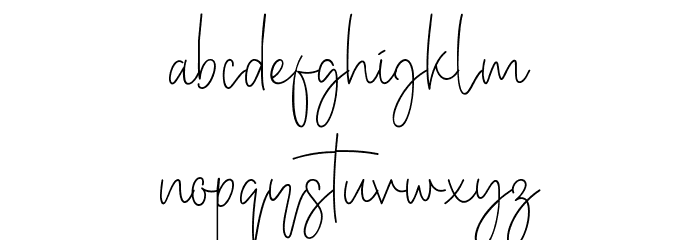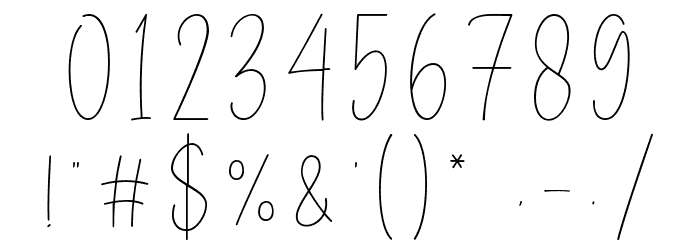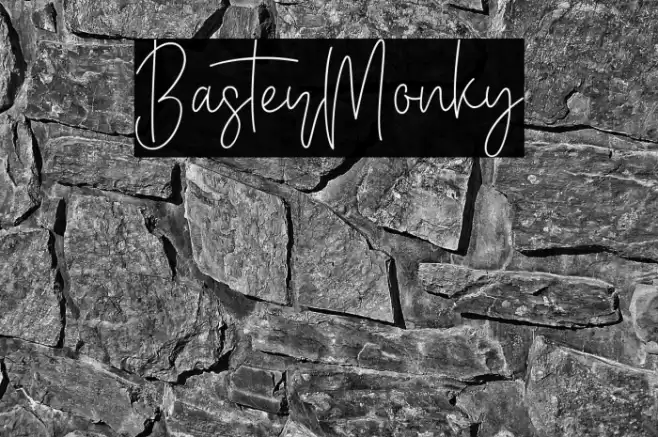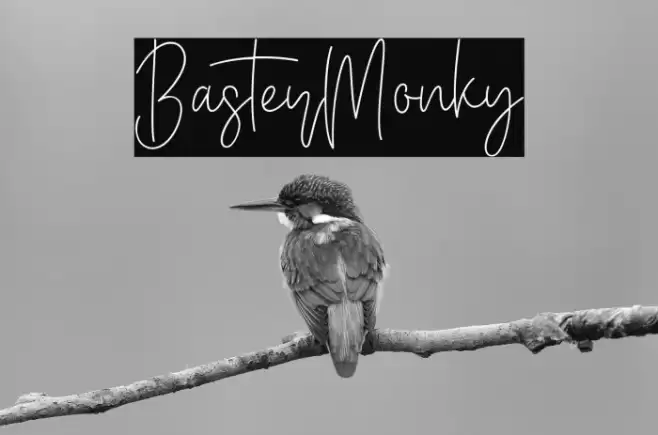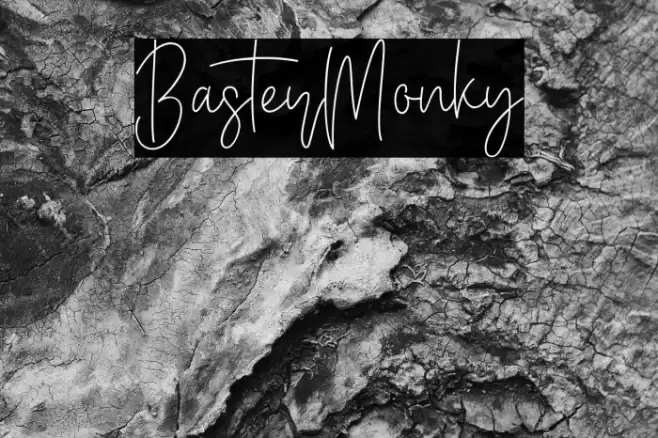
BasterMonky Font
This font features a playful and whimsical handwritten style, characterized by its tall, narrow letters and fluid strokes. The uppercase letters are distinct with elongated verticals and slightly curved lines, giving them a lively and dynamic appearance. The lowercase letters maintain a consistent flow, with smooth connections and a casual elegance. Numbers are similarly styled, with a uniform height and a touch of personality in their curves. Special characters are integrated seamlessly, maintaining the overall aesthetic. This font exudes a sense of creativity and spontaneity, making it ideal for projects that require a personal touch.
A playful handwritten font with tall, narrow letters and fluid strokes.
- Proposed Projects: Ideal for greeting cards, invitations, personal branding, and creative projects that require a whimsical touch.
- Use Case: Logos, Headlines, Creative projects